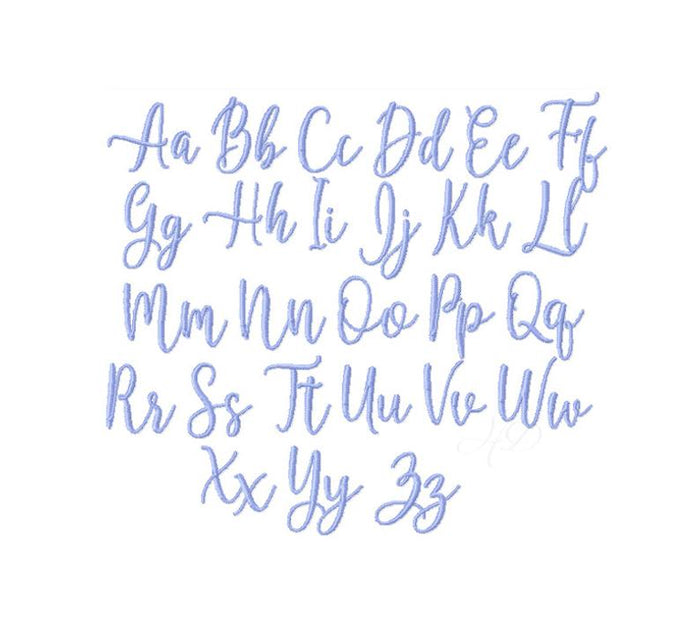
Amelia Satin Embroidery Font
Transform your DIY projects with the Amelia Satin Embroidery Font, a perfect choice for crafters seeking unique design elements. This font package includes 5 sizes—1", 1.5", 2", 2.5", and 3.5"—offering versatility for your monogramming needs. Each size features 104 individual characters, including uppercase, lowercase letters, and stylish swash variations.